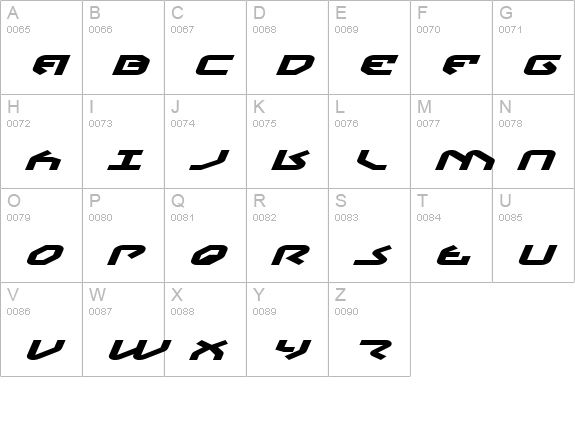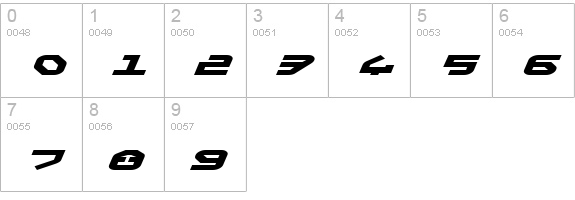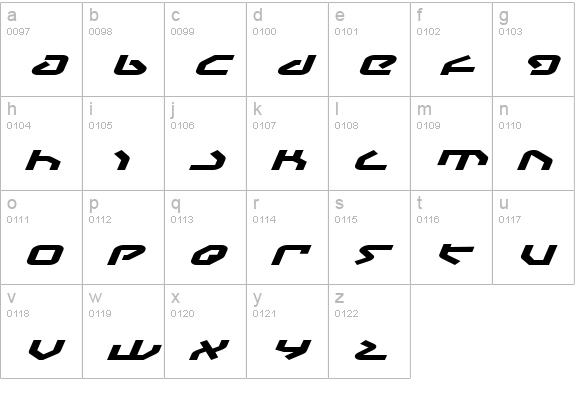
Yahren Expanded Italic Font Details
Yahren Expanded Italic is a distinctive, extended-width, italic variant in the Yahren typeface family \xE2\x80\x94 well suited to design and typography projects.
Yahren Expanded Italic is a sleek and modern font that exudes sophistication and elegance. Its italicized design adds a touch of flair and uniqueness to any project, making it perfect for a wide range of applications. The elongated letterforms create a sense of movement and dynamism, while the clean lines and sharp angles give it a contemporary edge. This font is versatile and can be used for anything from branding and advertising to editorial design and packaging. Whether you're looking to create a striking headline or a stylish logo, Yahren Expanded Italic is sure to make a statement. Best of all, this font is free to download at FontsMarket.com, making it accessible to designers and creatives of all levels. Don't miss out on the opportunity to add this stunning typeface to your collection and elevate your projects to new heights.